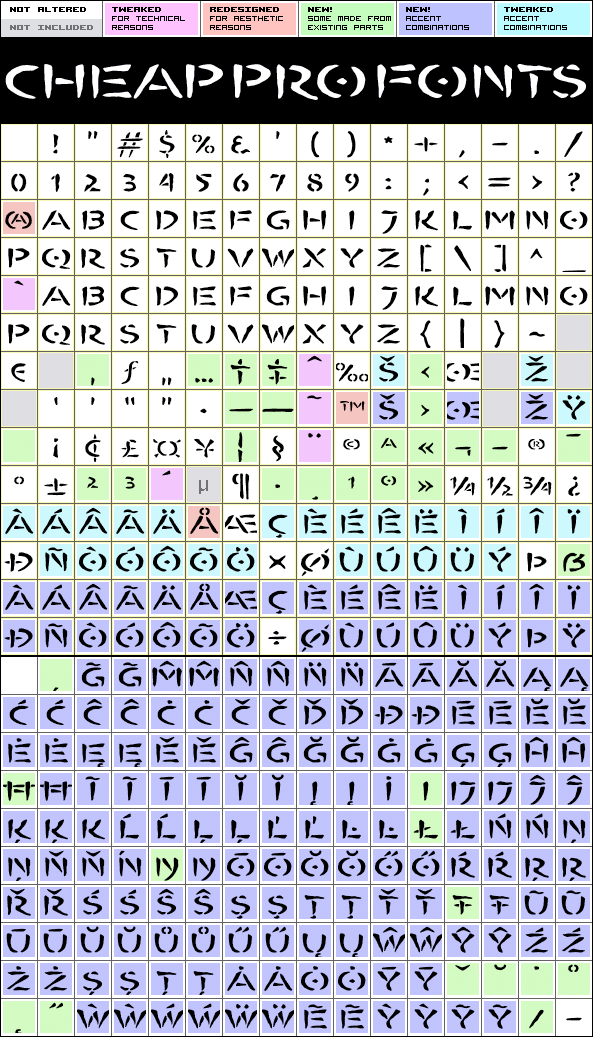
Bombora Pro
Bombora Pro by Jan Paul (digitized by Brian Kent)
Jan Paul (digitized by Brian Kent)
376 glyphs!
(161 in original)
1265 class kernpairs
= 52933 kerning pairs
(9719 in original)
The history of Bombora, from Jan Paul: "Bombora evolved over years of designs in the world of surfing. The native name is given to massive surf building up over a reef, often dangerous, always spectacular. The font was expertly digitized by Brian Kent in New York. This font lives on the beach in a Polynesian grass hut and goes out for a surf before breakfast (o:"
Bombora Pro is a professionally reworked font that contains an extended character set for setting text in 65 languages requiring more than the basic A-Z!